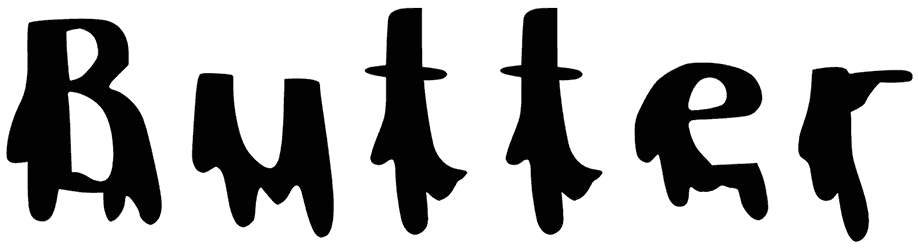
Butter Font
Chill your viewers with a cool melting font such as Butter. This melting font would lend your words a hand-drawn, dripping style that can catch a lot of attention. There is no support for punctuation marks, but you can c…
Chill your viewers with a cool melting font such as Butter. This melting font would lend your words a hand-drawn, dripping style that can catch a lot of attention. There is no support for punctuation marks, but you can count on it to show off your designs, for instance, apparel, webs, mugs, posters, and so forth with a haunting outward.